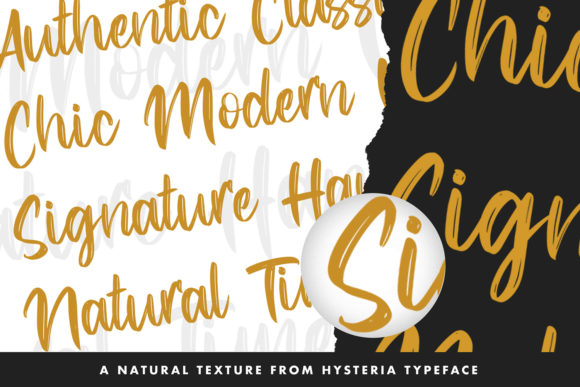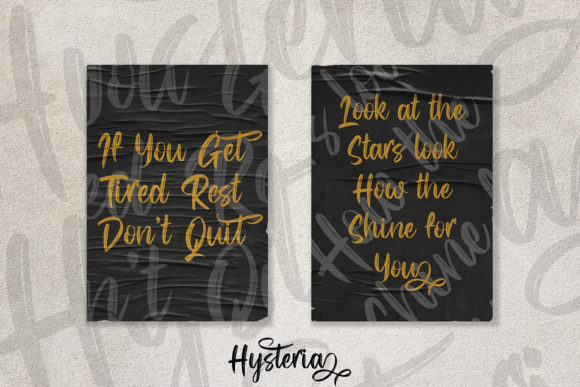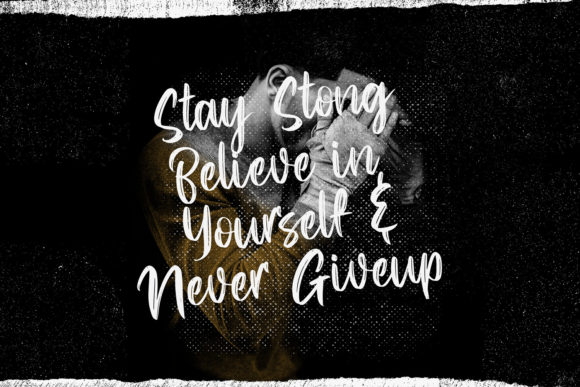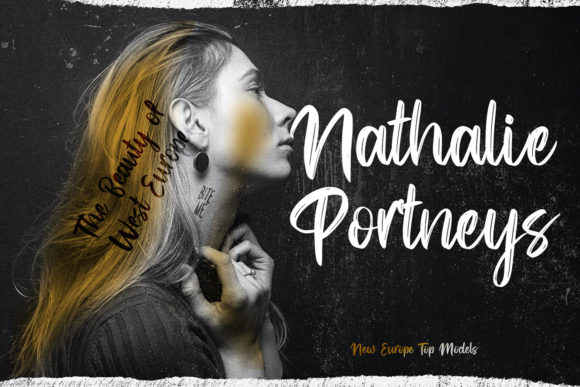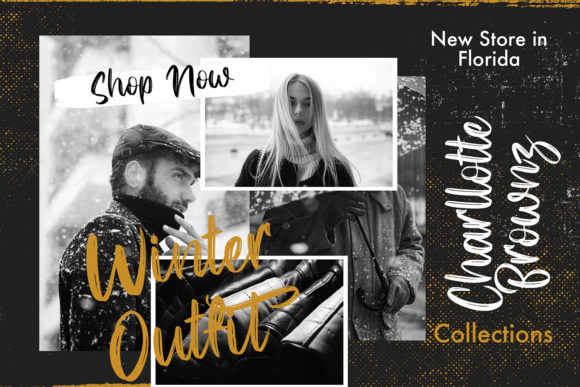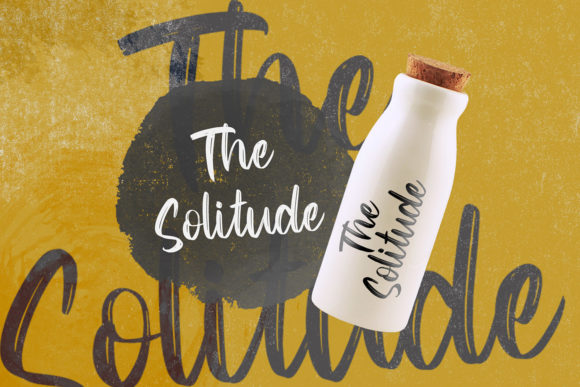
Introduction to Hysteria Font
Have you ever stared at a blank page, trying to bring your creative vision to life, only to be stopped in your tracks by the perfect font? That’s exactly what happened to me when I discovered the Hysteria Font. Its elegant script design instantly captured my attention, and I knew I had to learn more.
As a designer, I understand the importance of having a reliable design resource at your fingertips. A high-quality font like Hysteria Font can elevate your work from ordinary to extraordinary, making it perfect for branding, headings, and even wedding designs. With its beautiful, flowing lines and transparent background, Hysteria Font is a free download that’s sure to add a touch of sophistication to any creative project.
Whether you’re working on a personal project or collaborating with clients, Hysteria Font is a valuable addition to your design toolkit. Its versatility and style make it an ideal choice for designers who want to take their work to the next level.
Key Features of Hysteria Font
• High-quality design resource ideal for creative projects
• Unique, bold, and modern design aesthetic, perfect for making a statement in design projects
Honest Review: Hysteria Font
I recently had the chance to work with the Hysteria Font, and I must say it’s been a game-changer for my creative projects. This font is a great addition to any design resource library, offering a high-quality, elegant look that’s perfect for a variety of applications.
• ✨ High-quality, elegant design that’s perfect for creative projects
• ⚠️ Limited character set, which may not be suitable for longer texts
• ⚠️ May not be the best choice for body text, as it can be quite ornate
Overall, I’m thoroughly impressed with the Hysteria Font, and I highly recommend it to designers looking for a high-quality, elegant font for their creative projects.
The Hysteria Font is a high-quality design resource ideal for creative projects. It offers a unique and stylish aesthetic, perfect for making a statement in your designs.
Tips for Getting the Most Out of Hysteria Font
For the best results, use the Hysteria Font in conjunction with other high-quality design elements, such as images and graphics. Experiment with different font sizes and styles to create a unique and eye-catching design.
The Hysteria Font is perfect for a variety of creative projects, including:
• Marketing materials
• Branding and logo design
• Social media graphics
• Presentations and reports